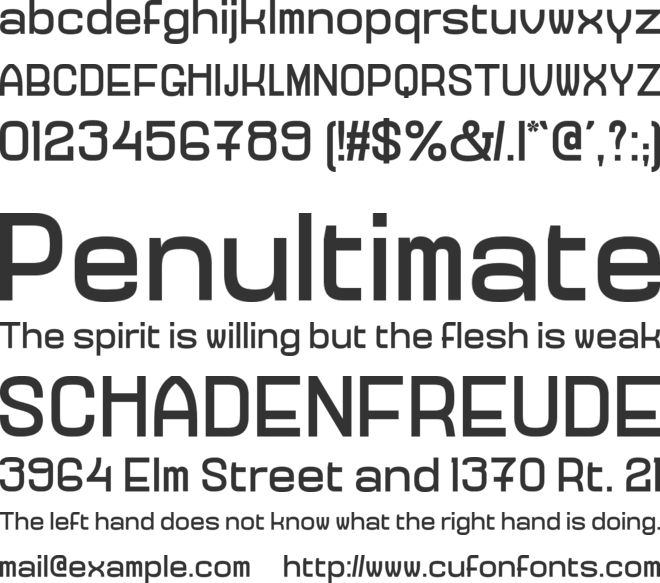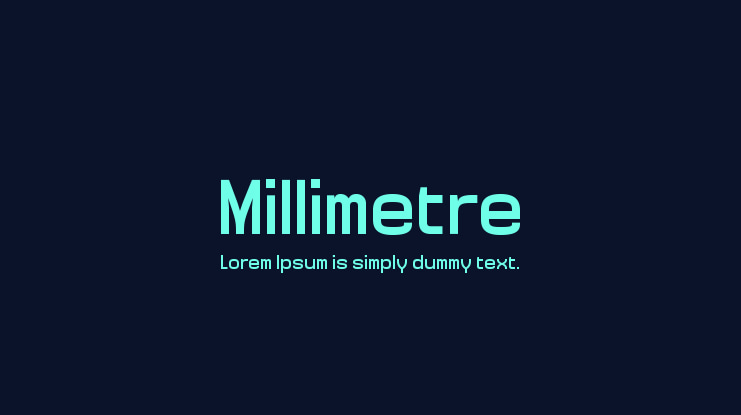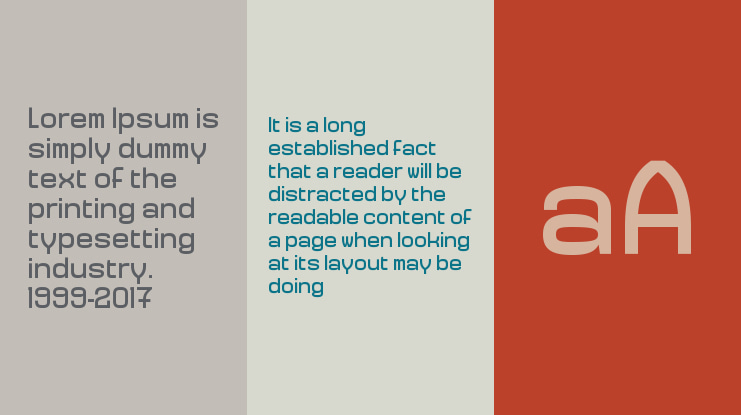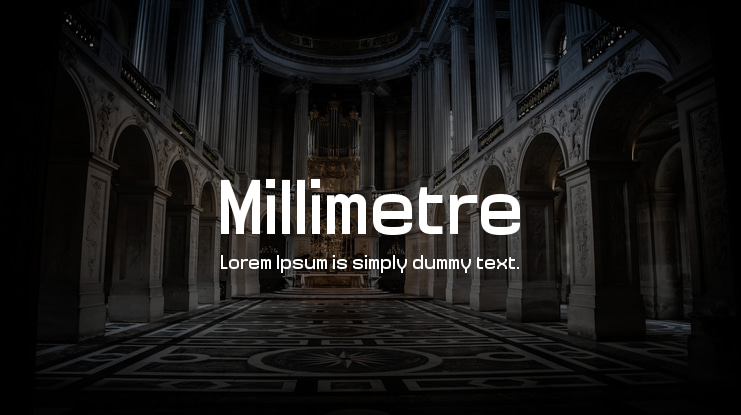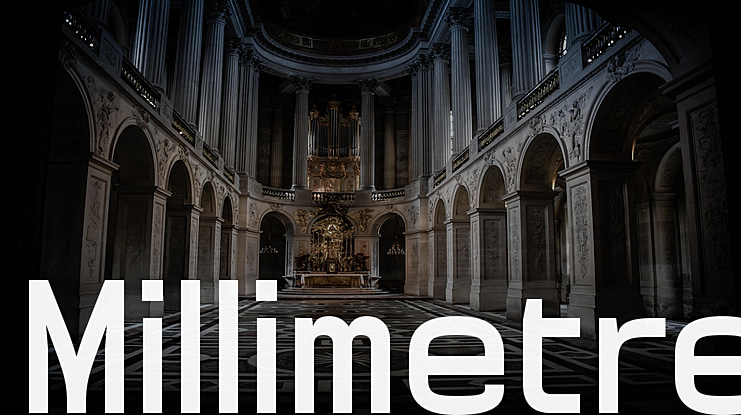
Millimetre is a series of fonts constructed on a grid based on the metric system. Printed at a 1 cm size, the strokes of the regular weight will be 1 mm thick. Both white spaces and black stems fit on this grid. http://www.velvetyne.fr/fonts/millimetre/
Jérémy Landes